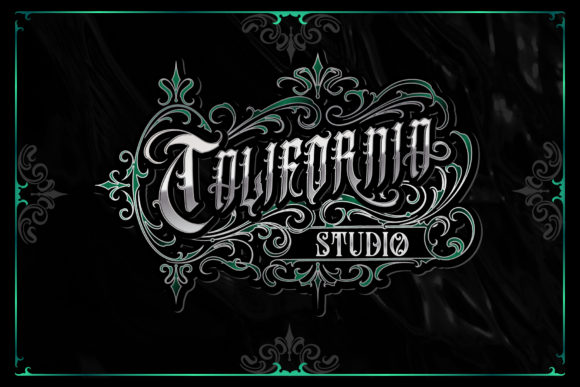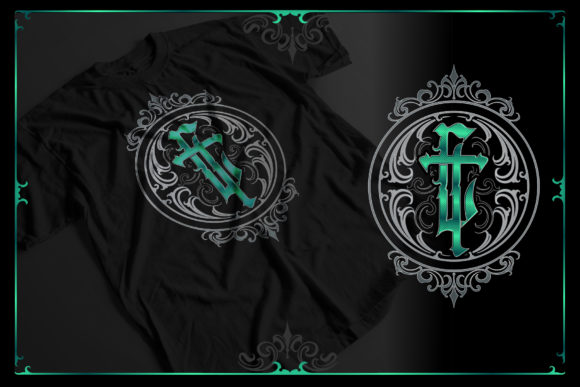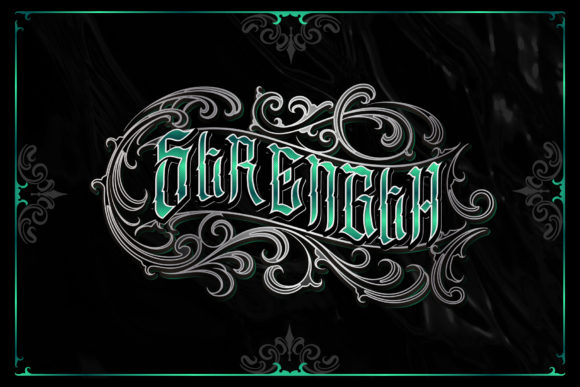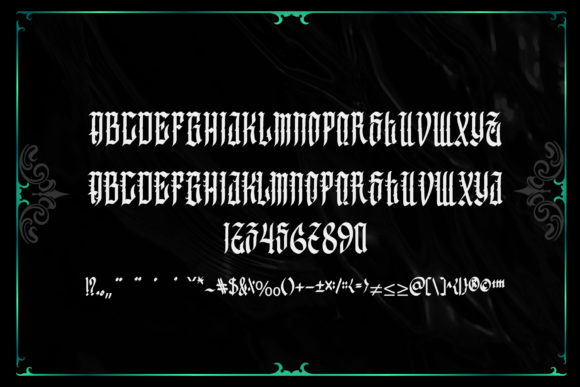
Introduction to Greenbull Font
Greenbull is a bold and authentic blackletter font.
Dramatic and powerful, this font will make each of your design ideas stand out .